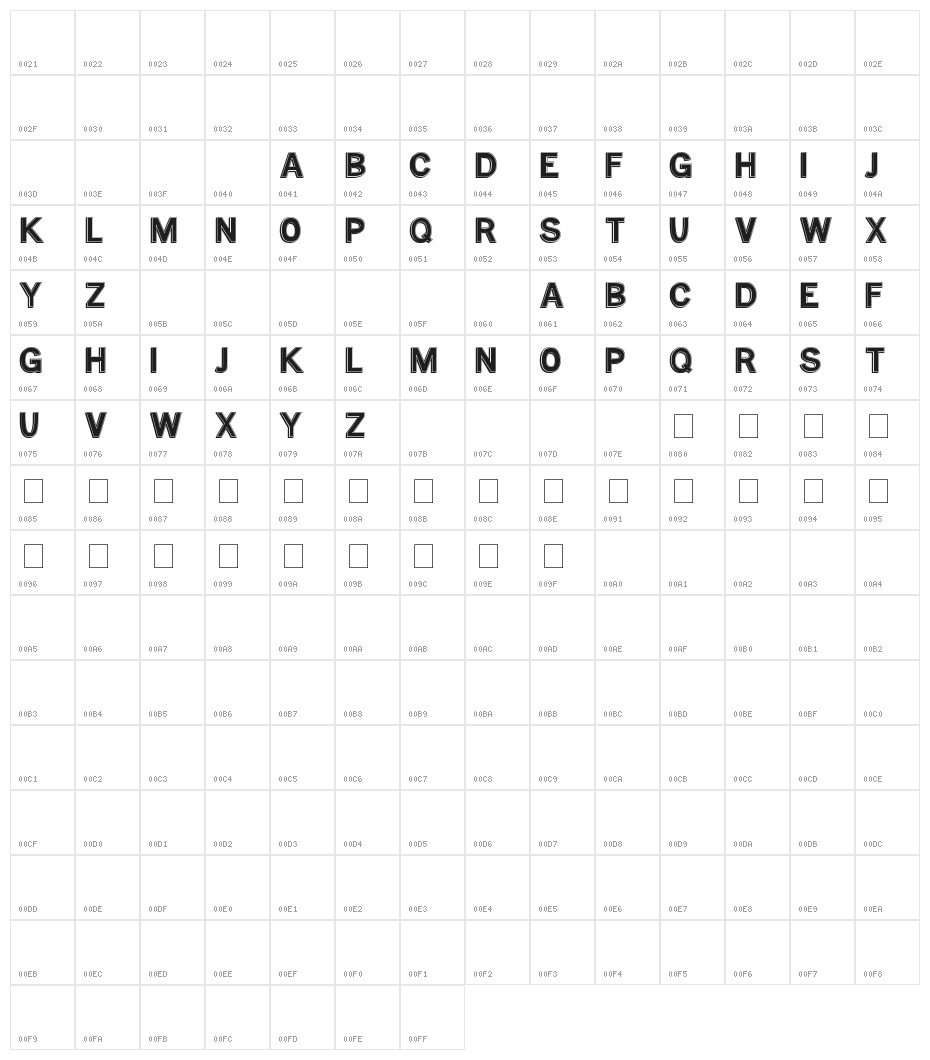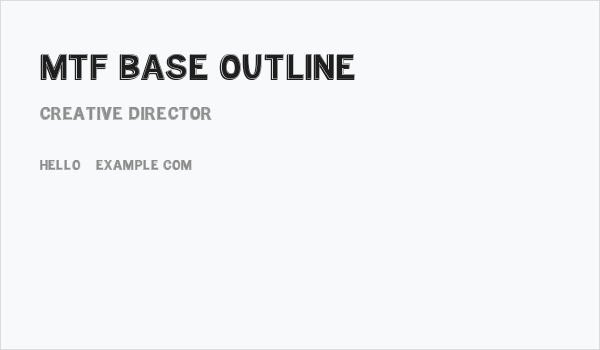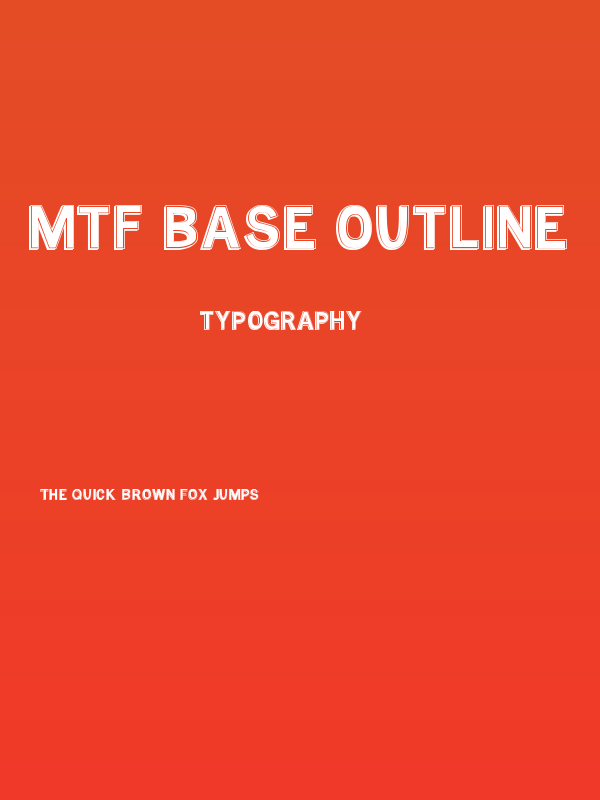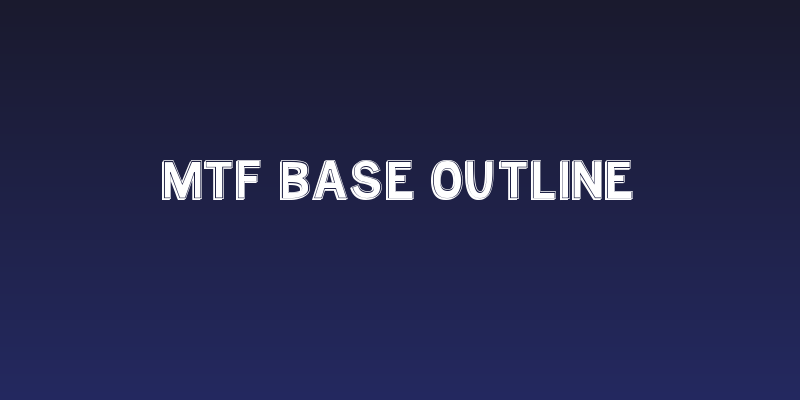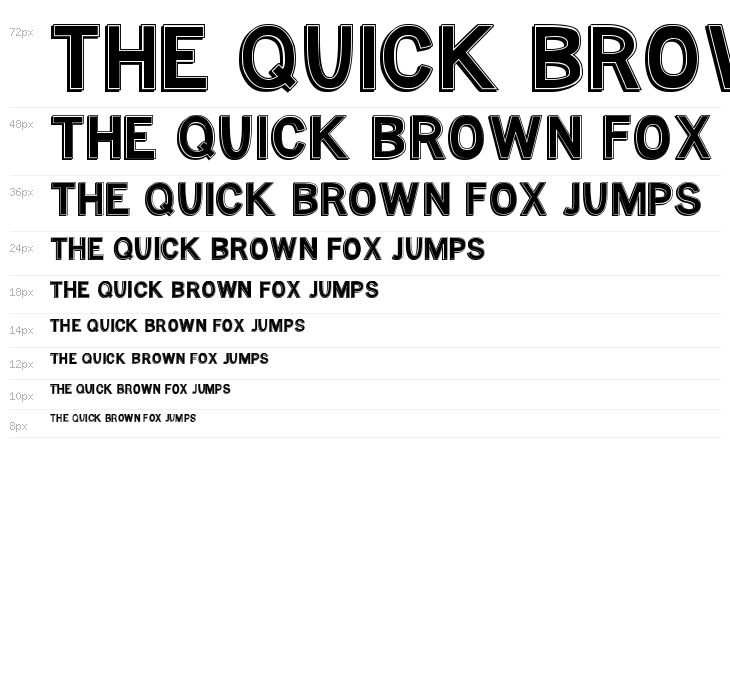
MTF Base Outline Font
MTF Base Outline Description
This font features a bold, outlined style that gives it a strong and impactful appearance. The uppercase letters are evenly spaced and maintain a consistent height, creating a uniform look across the alphabet. The strokes are thick, with a clear outline that enhances visibility and adds a modern touch. The geometric shapes of the letters contribute to a clean and structured aesthetic, making it suitable for various design applications. The font's outline style provides a unique visual effect, allowing for creative layering and color combinations in design projects.
| Proposed Projects | Ideal for headlines, posters, logos, and branding materials where a strong visual impact is desired. |